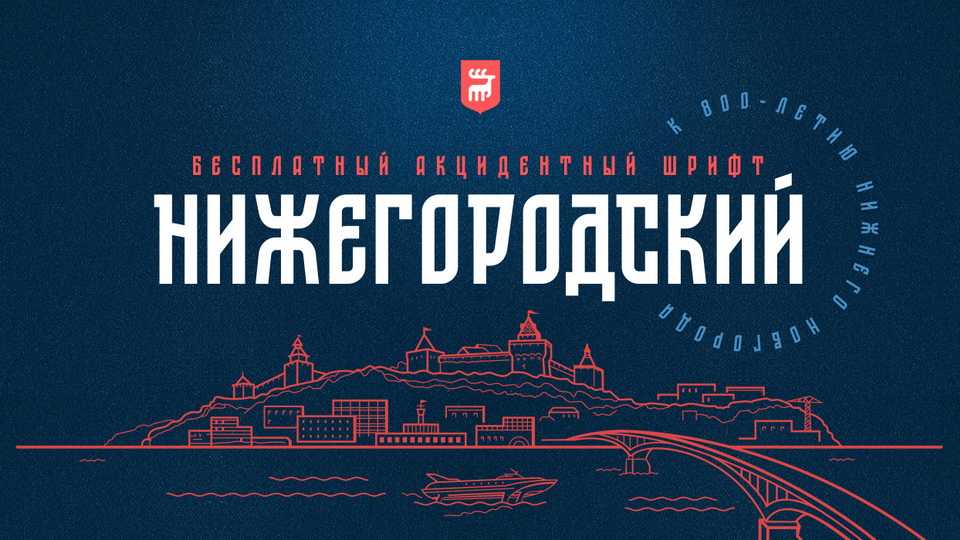
Download ST Nizhegorodsky font, an authentic display typeface dedicated to 800th anniversary of city of Nizhny Novgorod. ST Nizhegorodsky is an experiment to modernize the ancient Russian ligature.
Designer: Alexander Shimanov